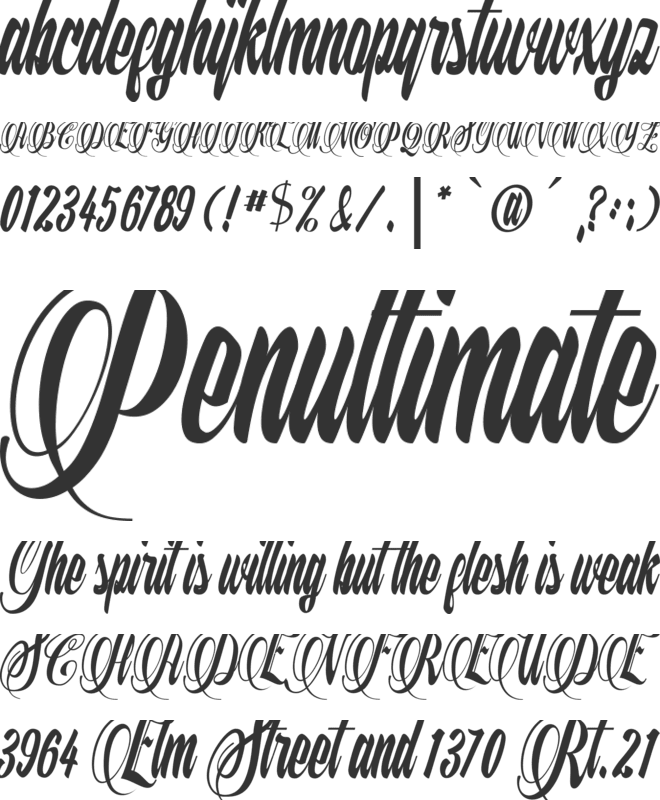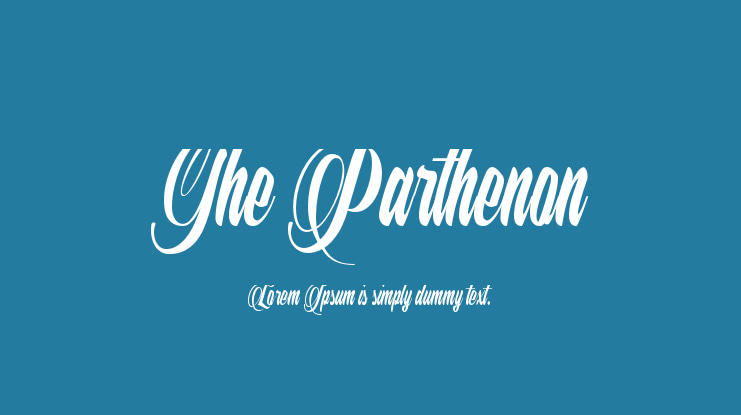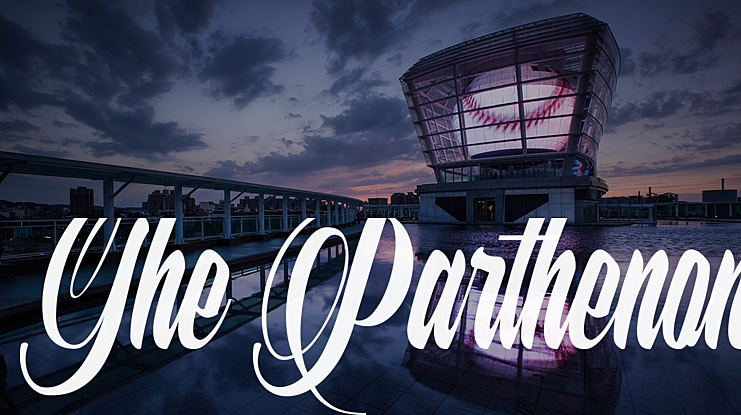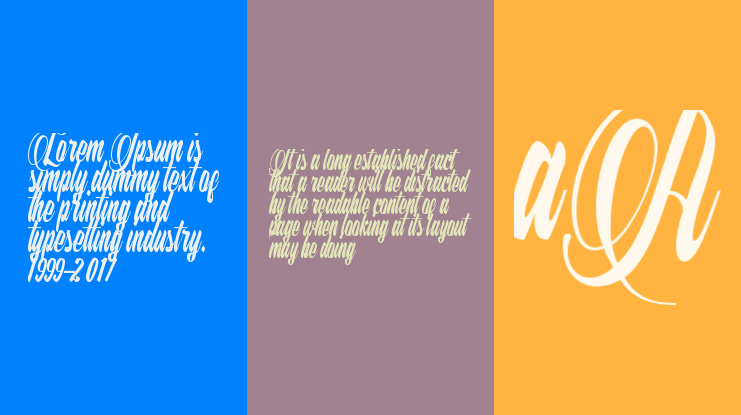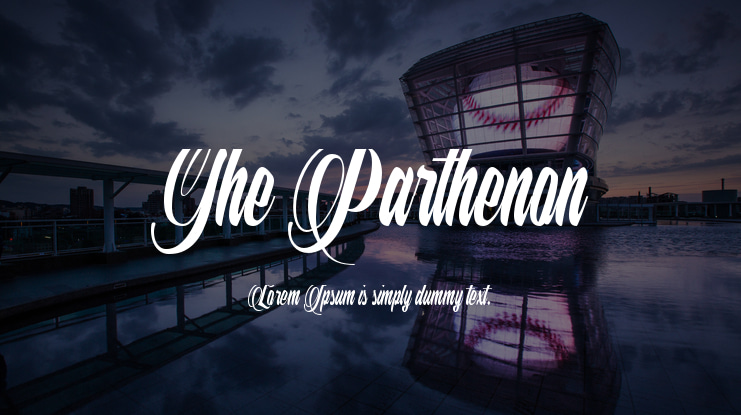
The Parthenon Font
The Parthenon Font is a calligraphy script font in lettering style. This font consists of 6 to 7 alternates, this combination creates an amazing lettering style. The lettering style formed by The Parthenon is very suitable for brands and packaging design. To complement this need, we also include swashes and ligatures to support the creation of logotypes.
Please feel free to combine alternates in any way you see fit! You will see several different views, please choose any model that matches your character. In the preview images, we provide some examples for using this font for logotype.
Like the Parthenon temple in Greece, designed with calculable scales, this very measurable series of letters allows you to make pleasing words that are like a parthenon which is visually pleasing from all points of view.